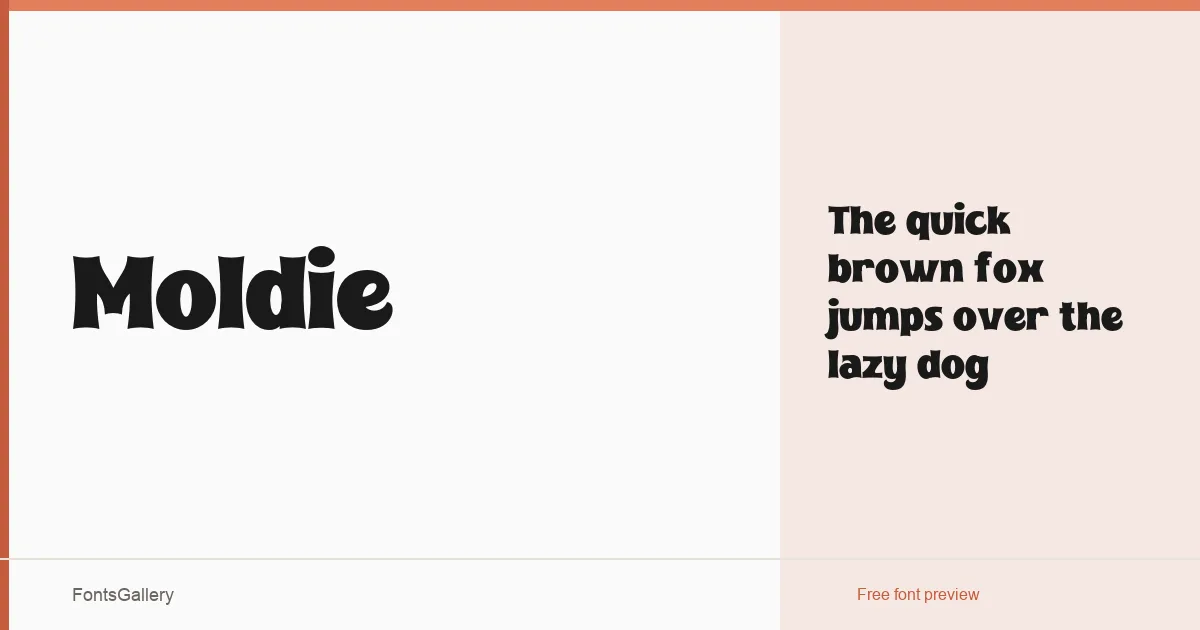
About Moldie Demo Font
Moldie Demo is a display typeface crafted by Dida Ahluddin under the ahweproject foundry, designed to make a striking visual impact across creative projects. Blending playful character with a bold, modern sensibility and vintage charm, this font brings a distinctive personality to any design it touches. The Demo version offers a taste of the full typeface's expressive range.
Moldie Demo's letterforms embrace a bold, attention-commanding presence that merges vintage warmth with a contemporary edge. The playful construction of each character adds a sense of energy and personality, making it immediately eye-catching in display contexts. Its modern undertones ensure it feels fresh and relevant while retaining a timeless, characterful appeal.
This typeface shines brightest in high-impact applications such as logos, posters, headlines, branding projects, and T-shirt designs where bold visual expression is key. Its display nature makes it ideal for grabbing attention in both print and digital environments. Moldie Demo pairs excellently with clean, neutral typefaces like Helvetica or the expressive Aresink for well-balanced typographic compositions.